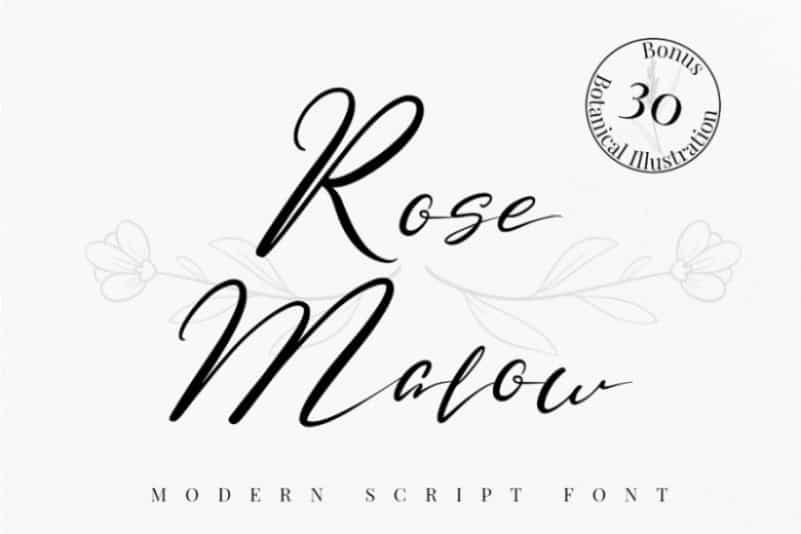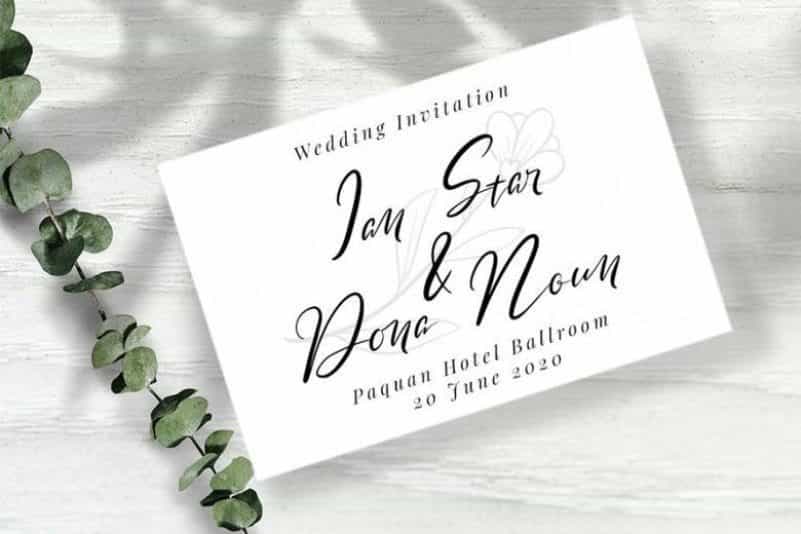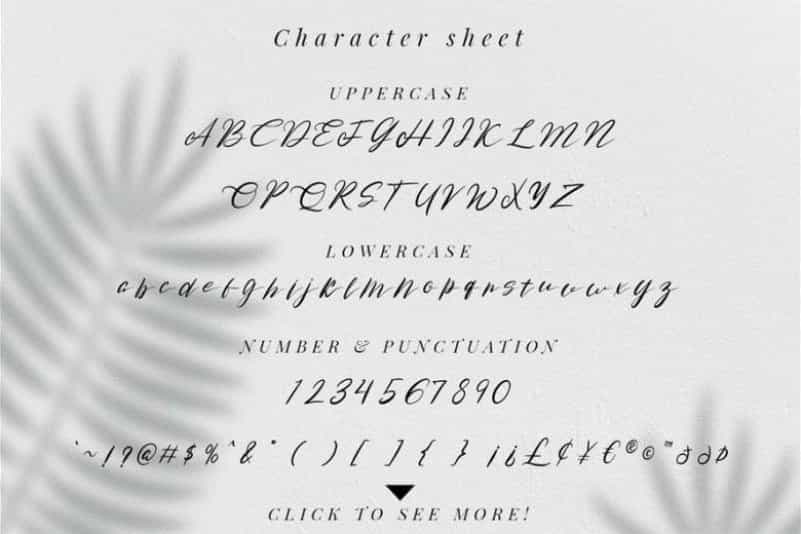
Discover Rose Malow Script Font, part of the Calligraphy Handwritten collection—a versatile and unique font perfect for adding a personal touch to your projects. Download it for free and enjoy crafting designs with style, from invitations to social media posts. This font is available exclusively for personal use, giving you the freedom to create without limits. Unlock your creativity with Rose Malow Script Font today!
Rose Malow is an delicate font that can effortlessly enhance the authenticity of any design project.